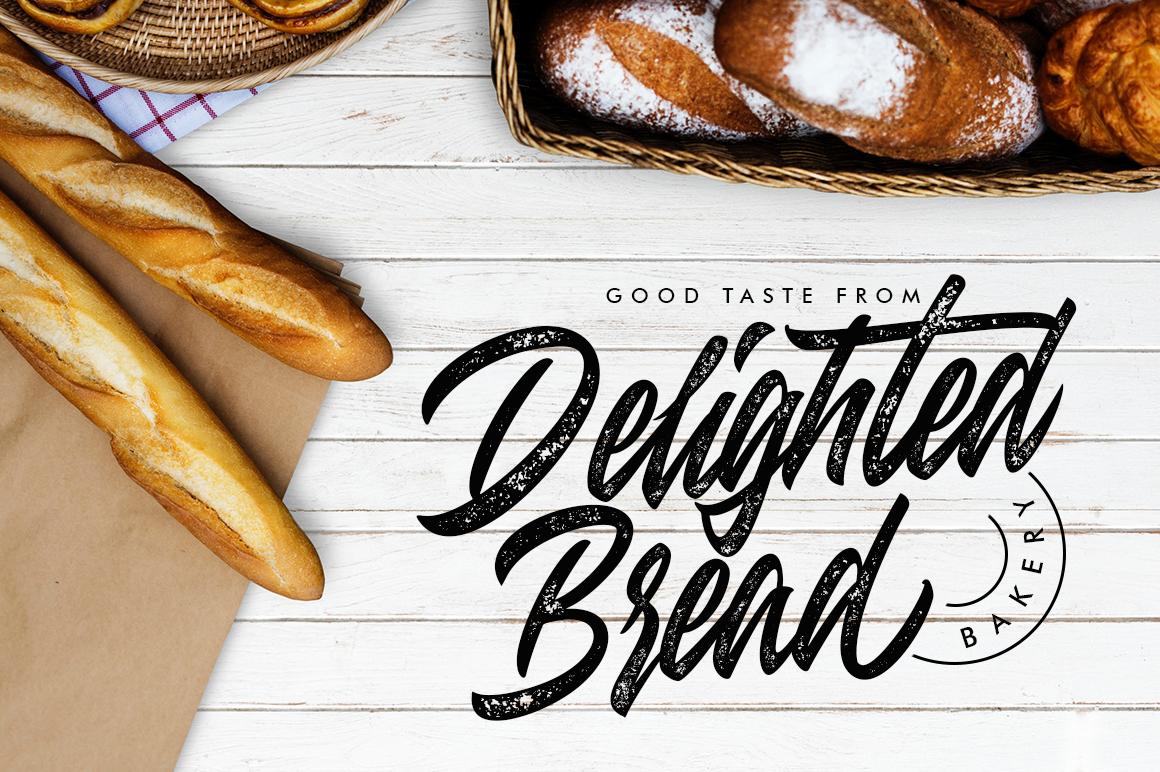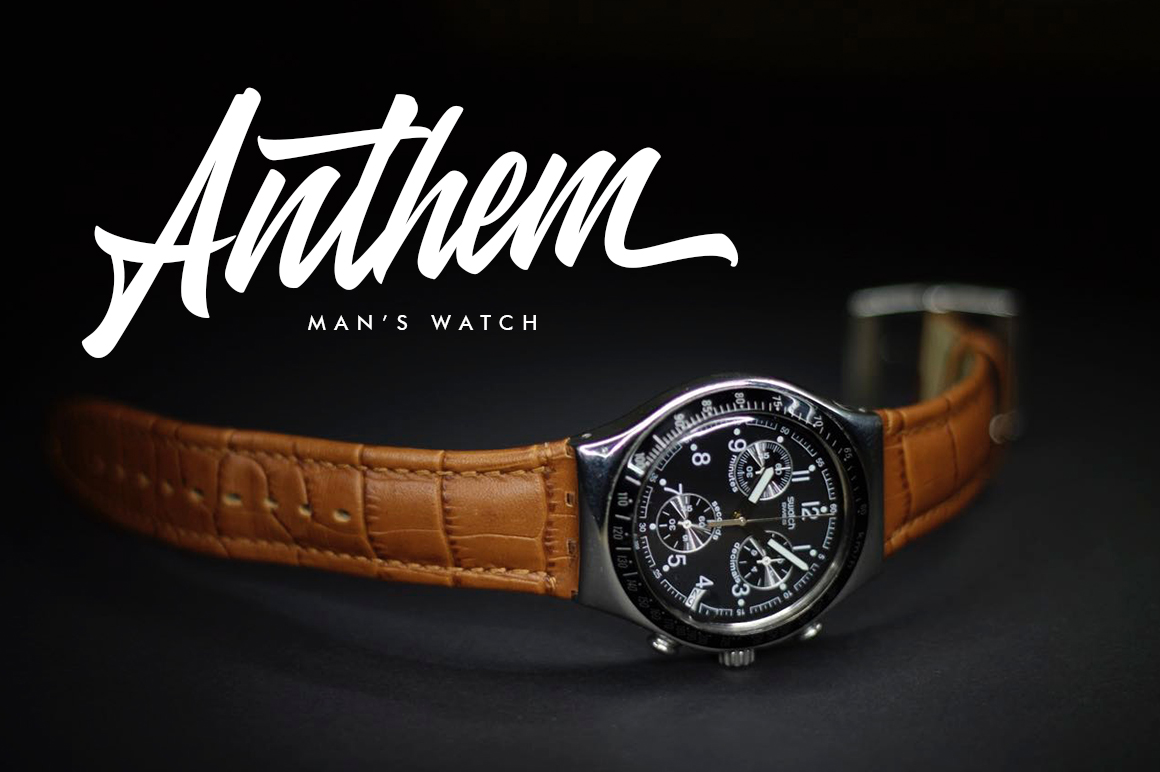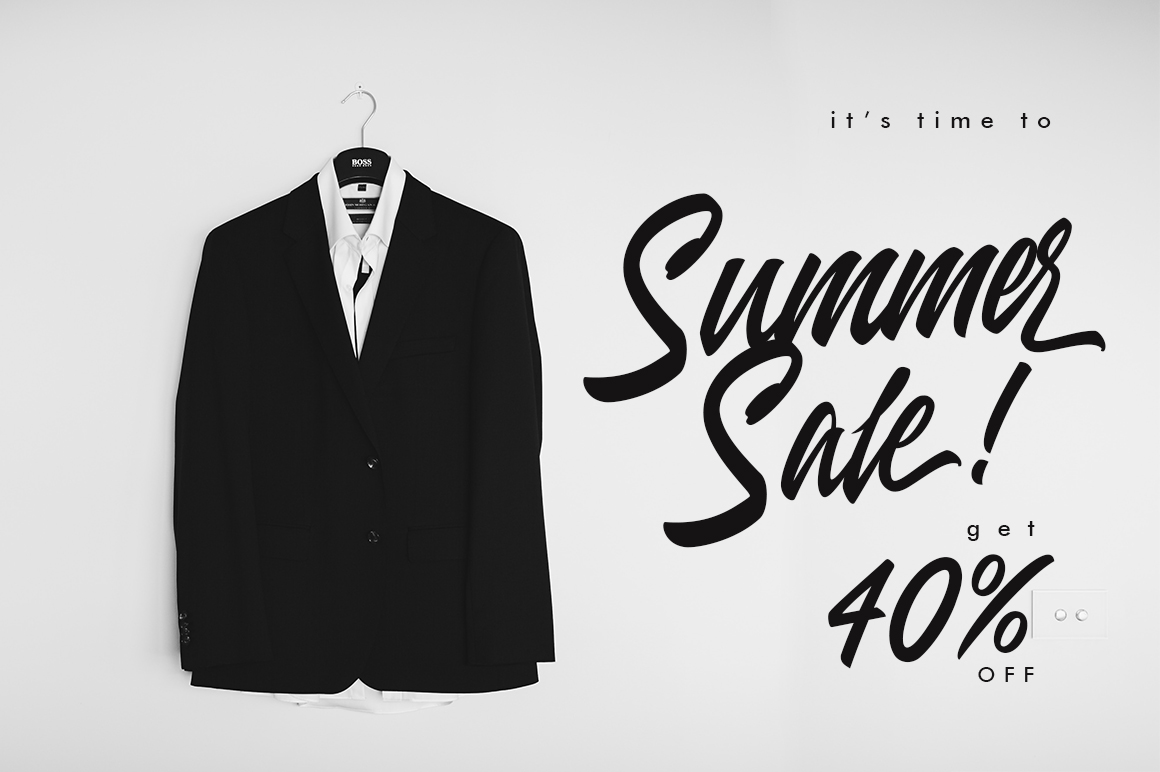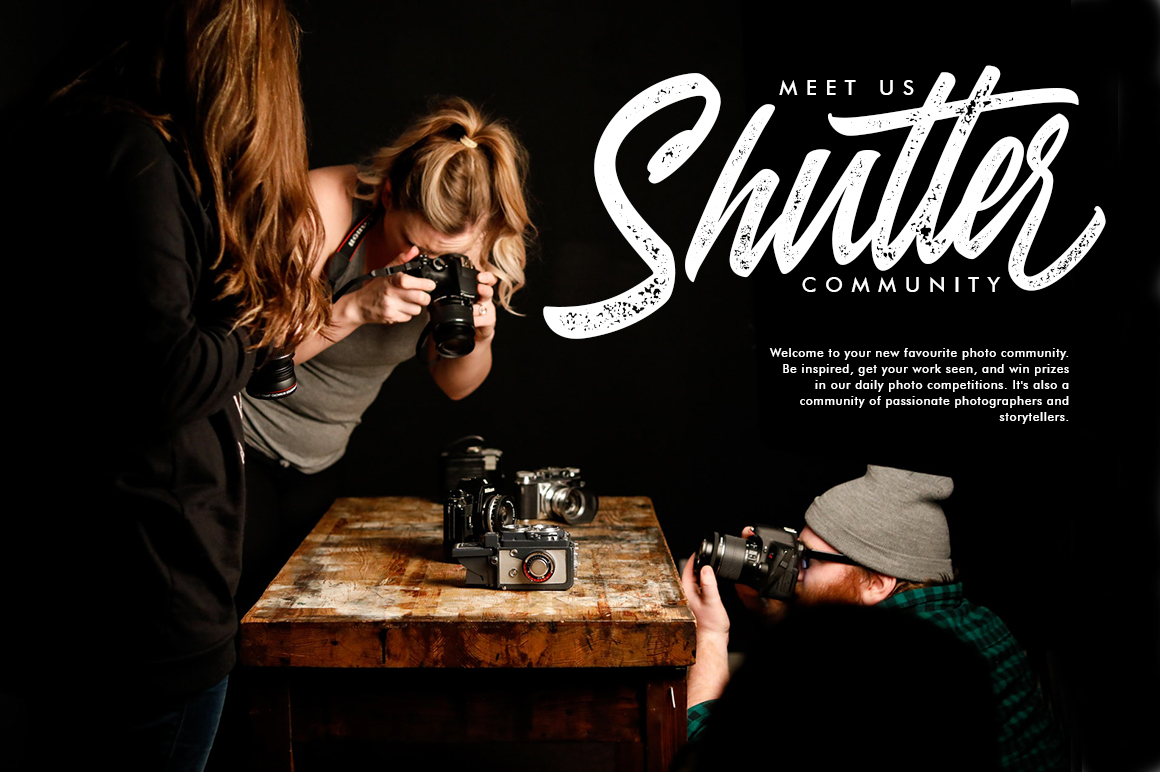
Entreaty Free Font
Entreaty Free Font is to use for any kind of design such as branding projects, logo, wedding designs, social media posts, advertisements, product packaging, product designs, label, photography, watermark, invitation, stationery, and any projects that need handwriting taste. This free typeface was designed by a talented CreatypeΒ Studio. If you like it don’t forget to check out the full version.